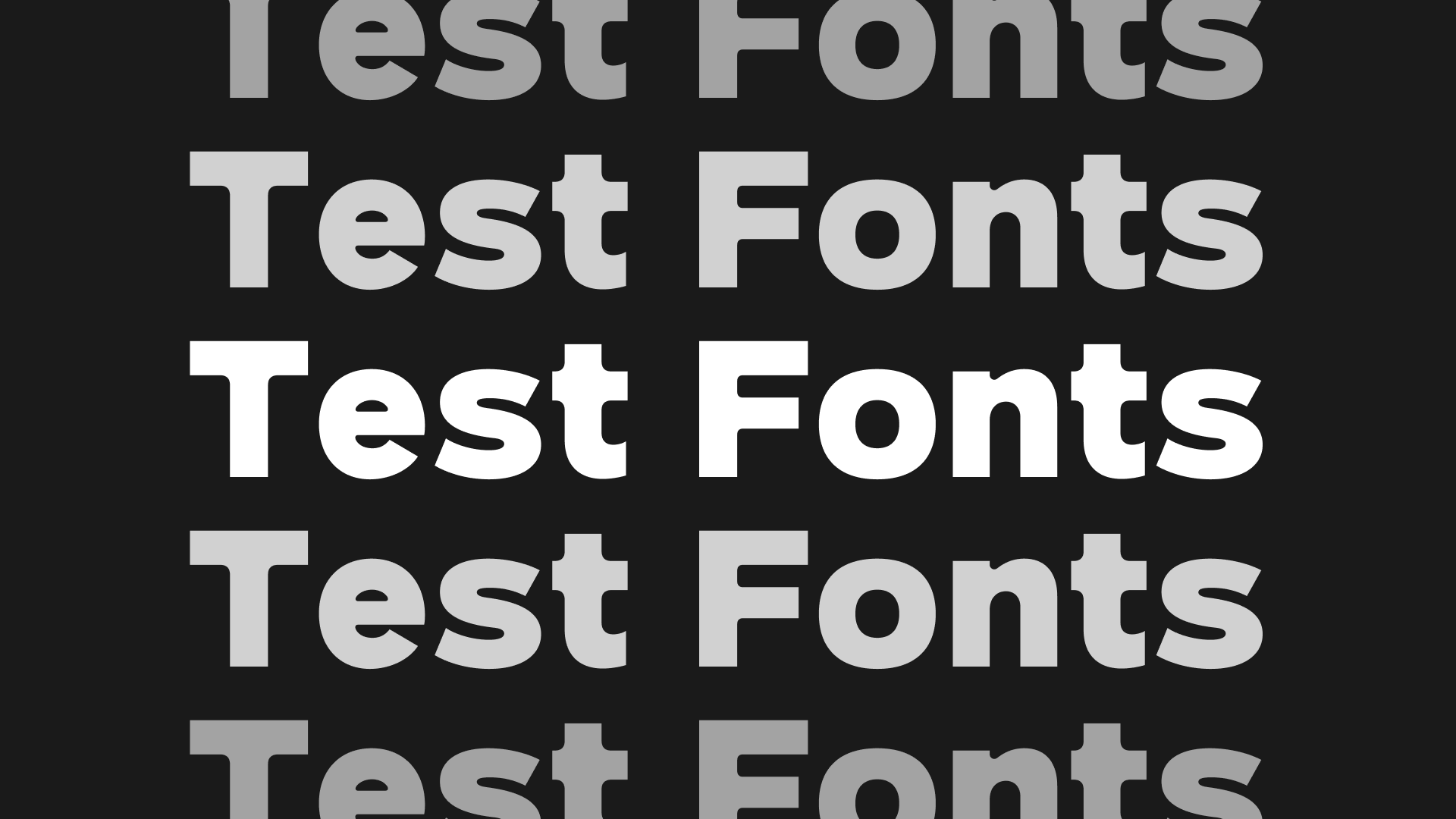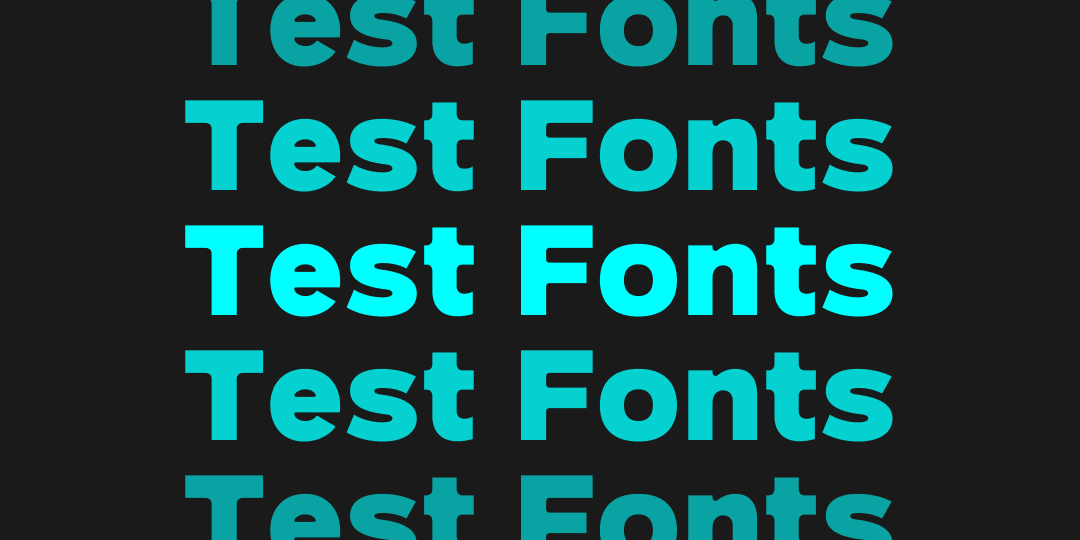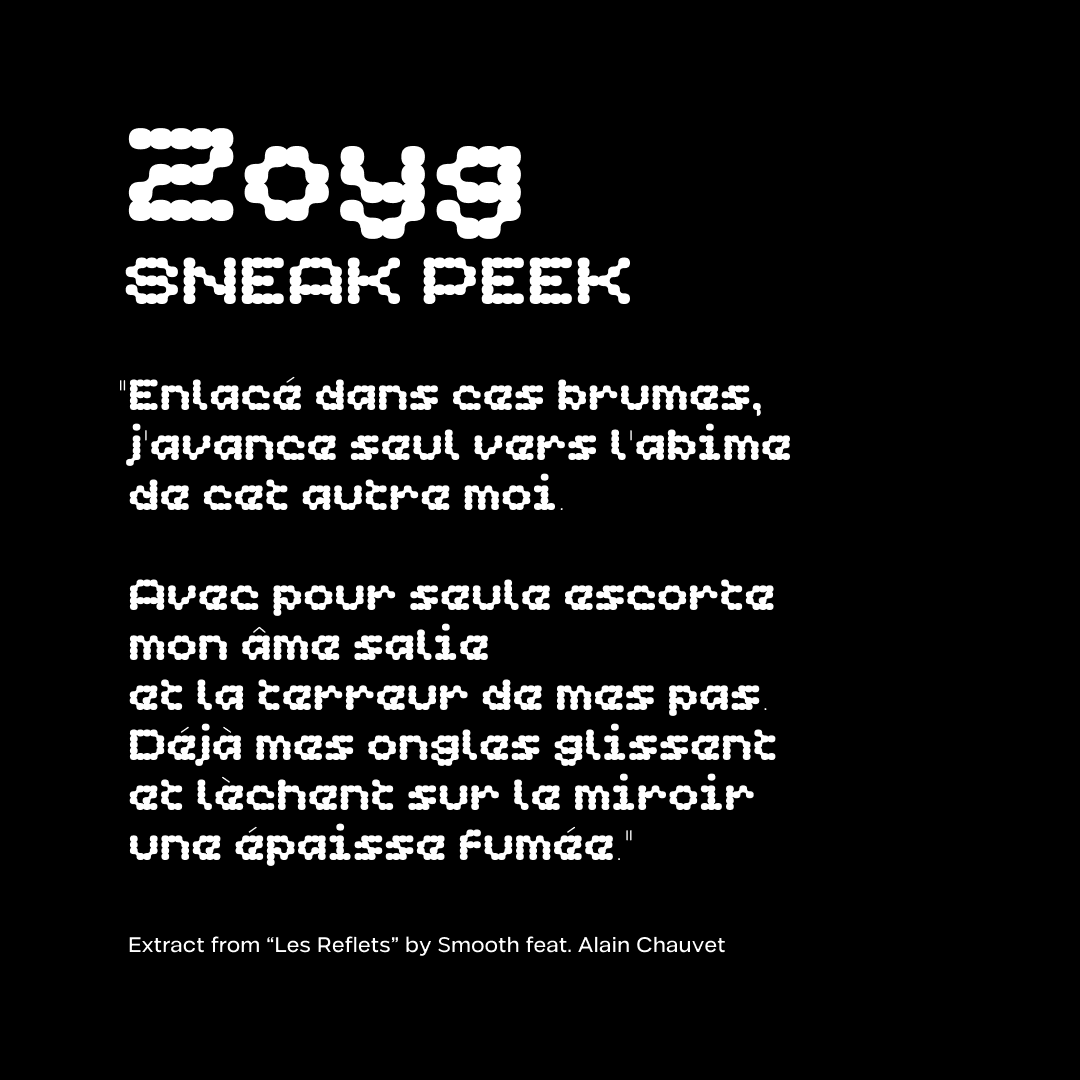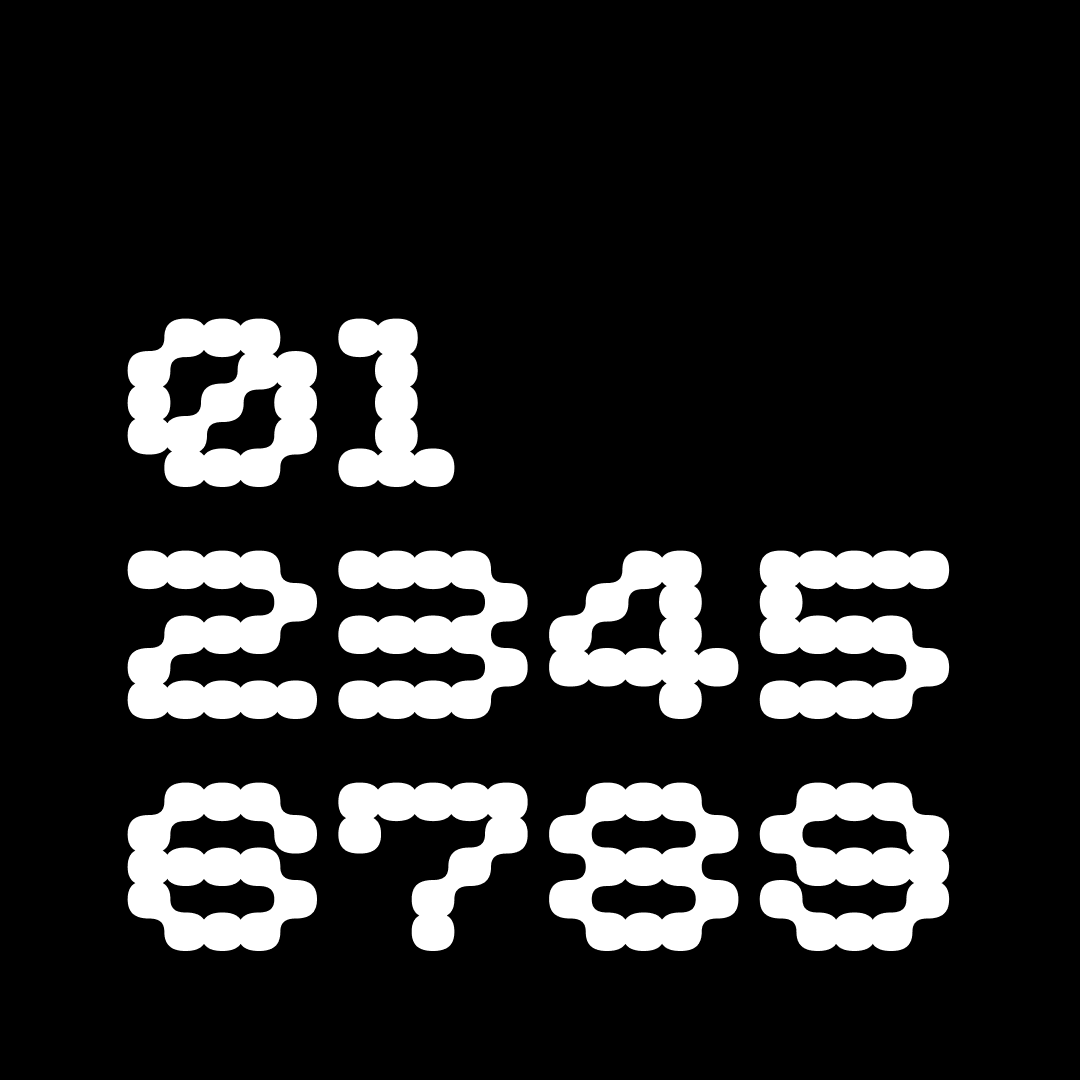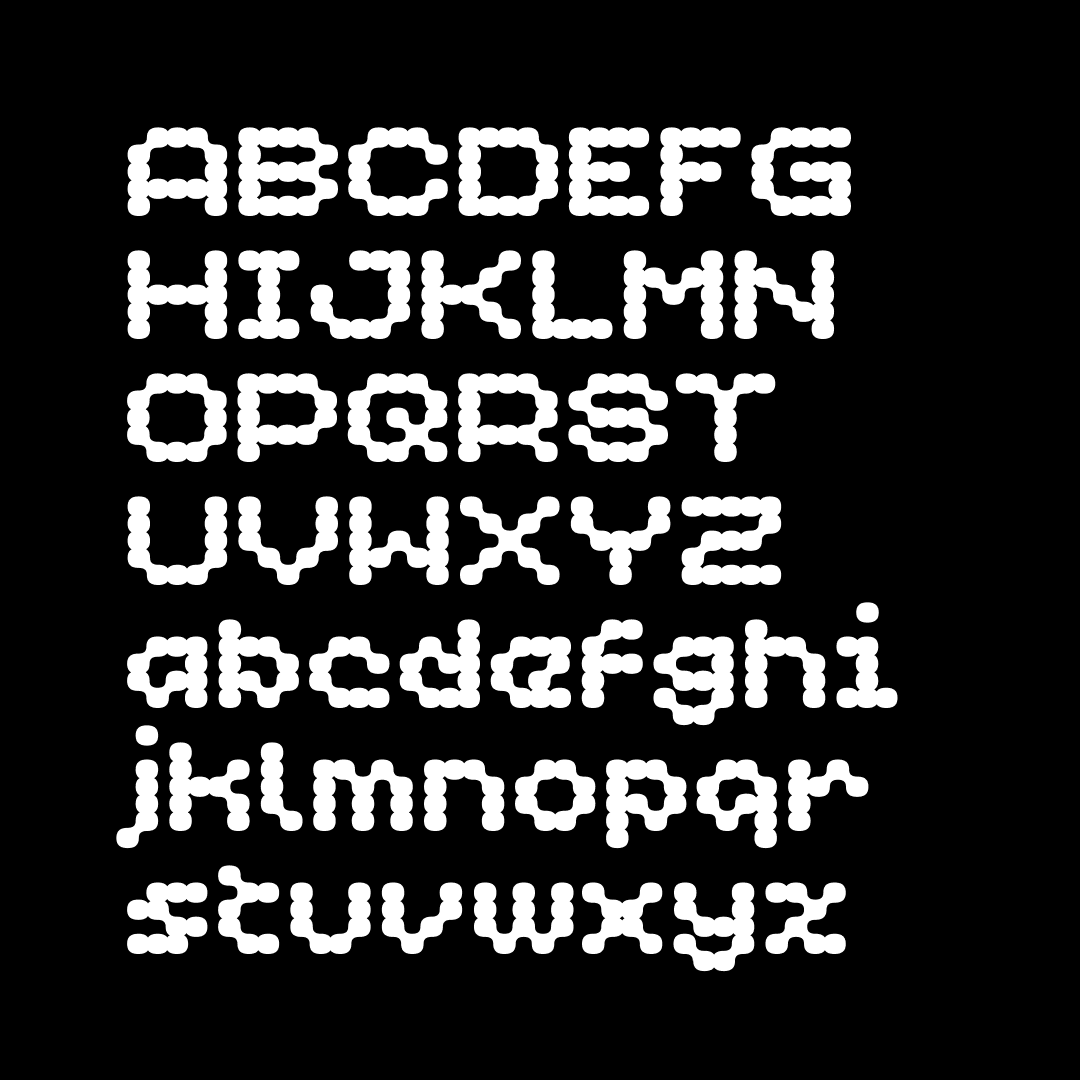
About Test Fonts
Let me share a couple of information and thoughts about test fonts here.
Fonts are software, OK. That means that you grant access to the software by charging some money: aka the licence. Up until this point, that’s common knowledge.
Then comes the question of “Can I have a sneak peek and see if this piece of software fits with my project?” We experience “testing” in a lot of contexts: trying a pair of shoes before buying them, listening to an extract of song before listening to the album, watching a trailer for a movie. Even appetisers in a restaurant can be considered as a try before you go all the way (testing/tasting: close enough ^.^). Expectations are the same way for fonts.
That is why most foundries provide test fonts, or demo fonts, or trial fonts. When I say ‘most’, that’s a ballpark assumption based on my current experience. Let’s round that up to ‘more than 50%’. I’ll do some proper research backed by numbers later! And event if the foundry doesn’t distribute trial fonts, you are just one email away asking for it. Type designers will be delighted with you reaching out!
Well, in ‘most’ trial fonts there is… Stuff. Usually A to Z, a to z, numbers and if you are lucky: a couple of punctuation marks. Perfect for any English content… So much for other languages! It’s like if you get a demo period for Photoshop but you get access to ‘just’ the first 5 items of the first 7 menus in the interface. I got more funny and sarcastic examples:
• “Sorry, our policy states you can only try on the left shoe. Hope for the best with the right one. What’s your strong feet, by the way?”
• “Hey, please enjoy an extract of my new song! By the way, the drum and singing parts are only available with the complete track.”
• “Madame, monsieur: the Chef as prepared an exquisite appetiser for you. This is a ‘Beignets de Fleurs de Courgettes et son Espuma de lentilles à l’Obium’. You may chew the appetiser two times before you spit it out. Bon appétit!”
I took a different approach: I give full access to font features and glyphs. I’m not the only foundry proposing this approach. Clearly, it’s a very tiny percentage of type foundries. Because you know, piracy, etc. Let’s give access to what’s really possible within our fonts! The one thing that is different is the actual name of the font in your interface, with the TRIAL suffix.
I trust that people finding value in my fonts will purchase a licence. If they don’t see the value, then they probably won’t use it. And in the case they use it without a proper licence purchase, back to square one: they give value. But we switch to a different conversation, involving legal terms.
Read About Type Design
I’ve published a book/publication list a couple of months ago. Those are books and magazines I own or we were referred to during the Practica Program. I’m actually working on a new version of this list.
You can visit the current version (let’s call it the prototype) and here’s a preview of the new and coming layout.
Mockups for the new version (MVP? V 1.0?)
Words of Type
“Words of Type is an encyclopedia of typographic terms, illustrated and explained in multiple languages. Words of Type aims to be a useful and accessible tool for everyone interested in typography and type design, everywhere.”
I love this project. Simply because it holds two things dear to me: education and localisation.
Lisa Huang did an amazing job already (she’s not alone) and she/they need our support making it happen. **Only 8 days left guys!** Made my pledge already.
Some Glyphs, After All!
I did it again. Instead of advancing the Twig family, I starter another display font! Gotta work on this ‘finish what you started’ issues.
Anyway, please let me introduce to you Zoyg, a blobby display typeface. This is still an early design. I’m looking at expanding the idea to a full family with different widths and heights, maybe event a slanted version. Let me know what you think by using the comment at the end of the post.
The font is already useable, reach out if you want to test the beta files.
I’d love to see those numbers on a t-shirt collection or in a way-finding system.
Isn’t it the cutest ‘at’ sign you’ve seen in a while?
Current state of the Latin alphabet in this ‘55’ weight.